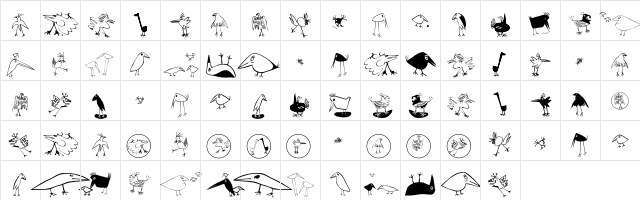
Birds Regular Font Preview
Birds Regular
Design Context for Birds Typeface
Birds is a composed and adaptable typeface that performs quietly and consistently across a wide range of design contexts.